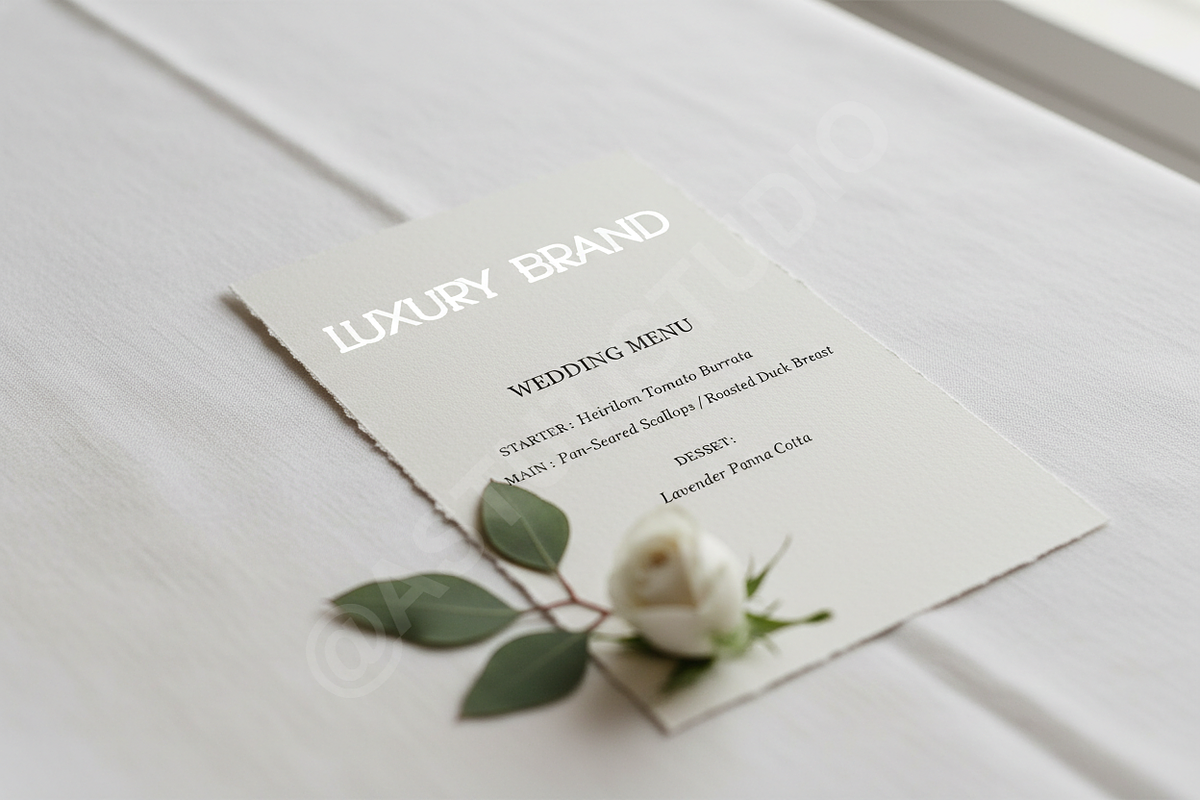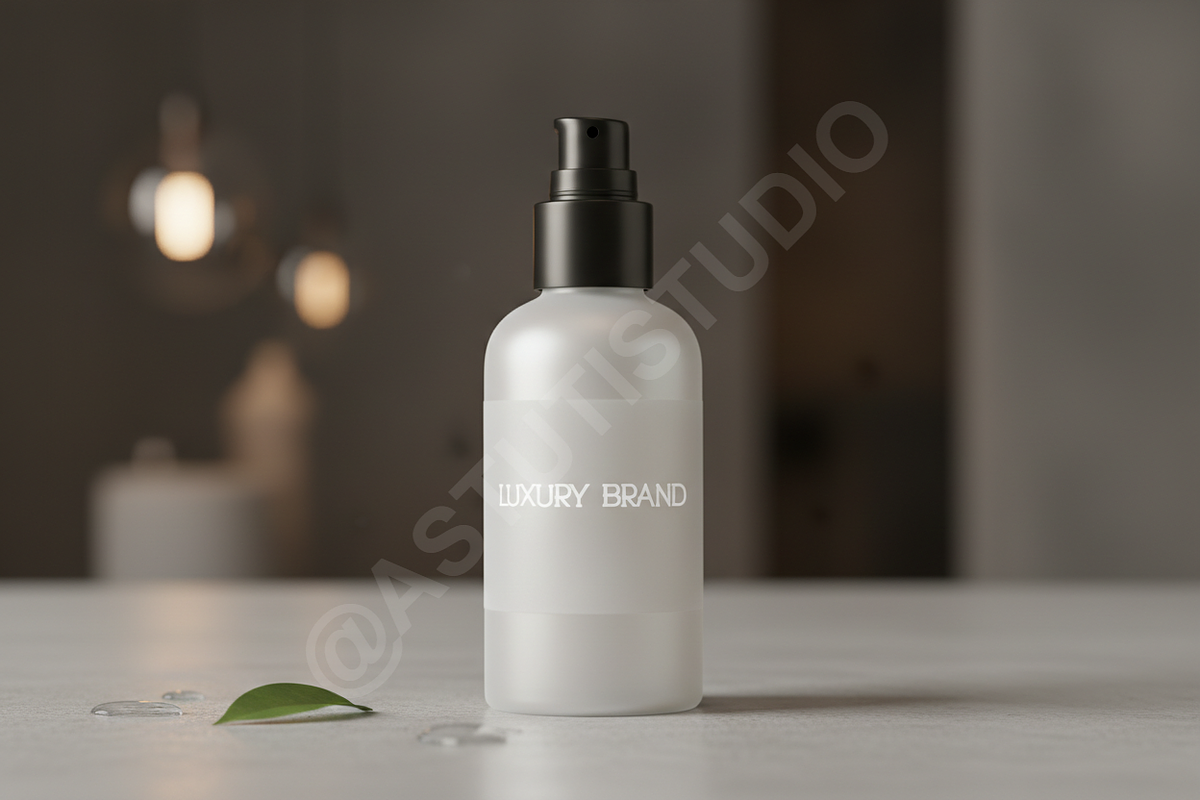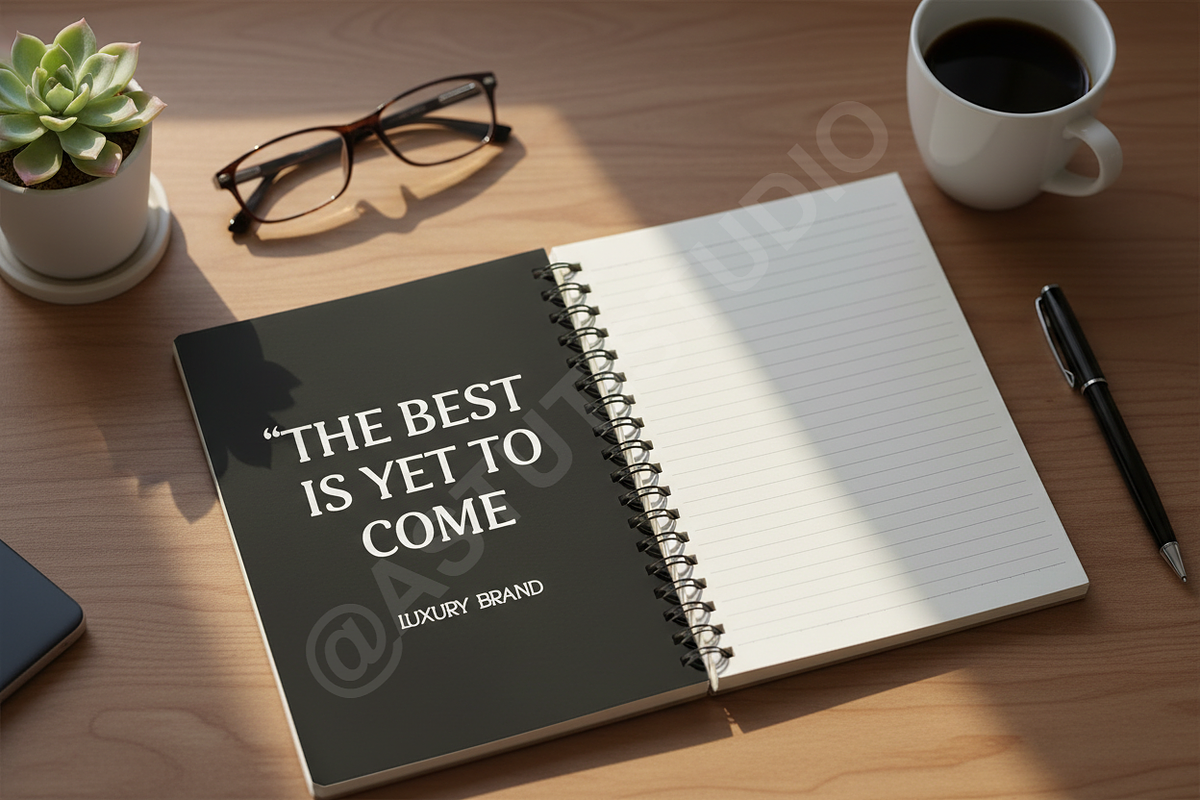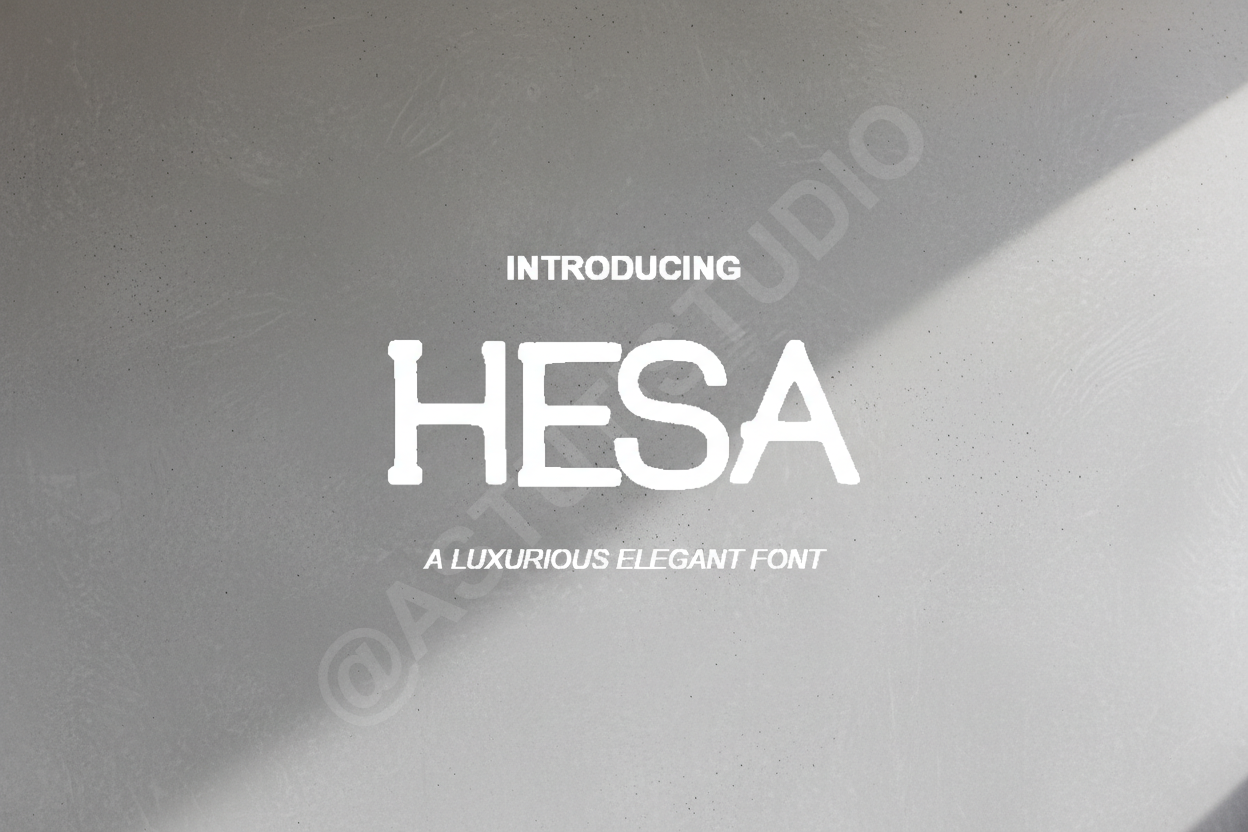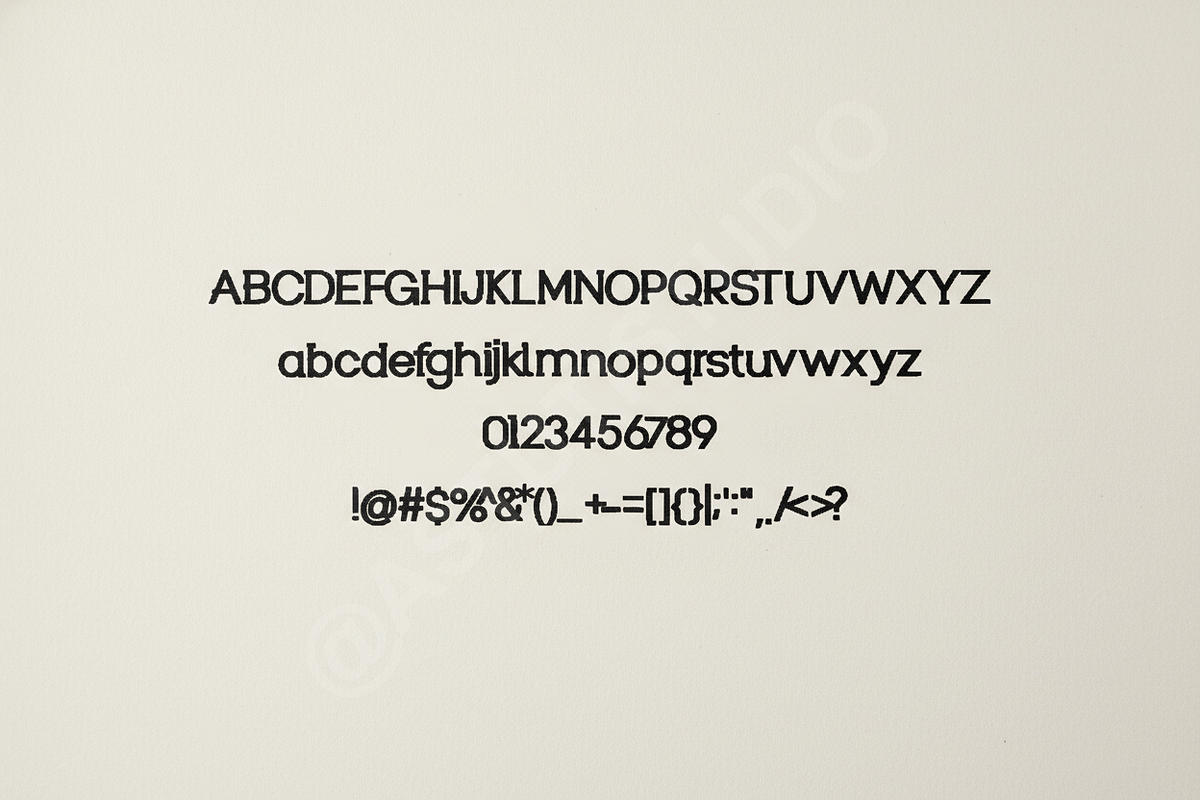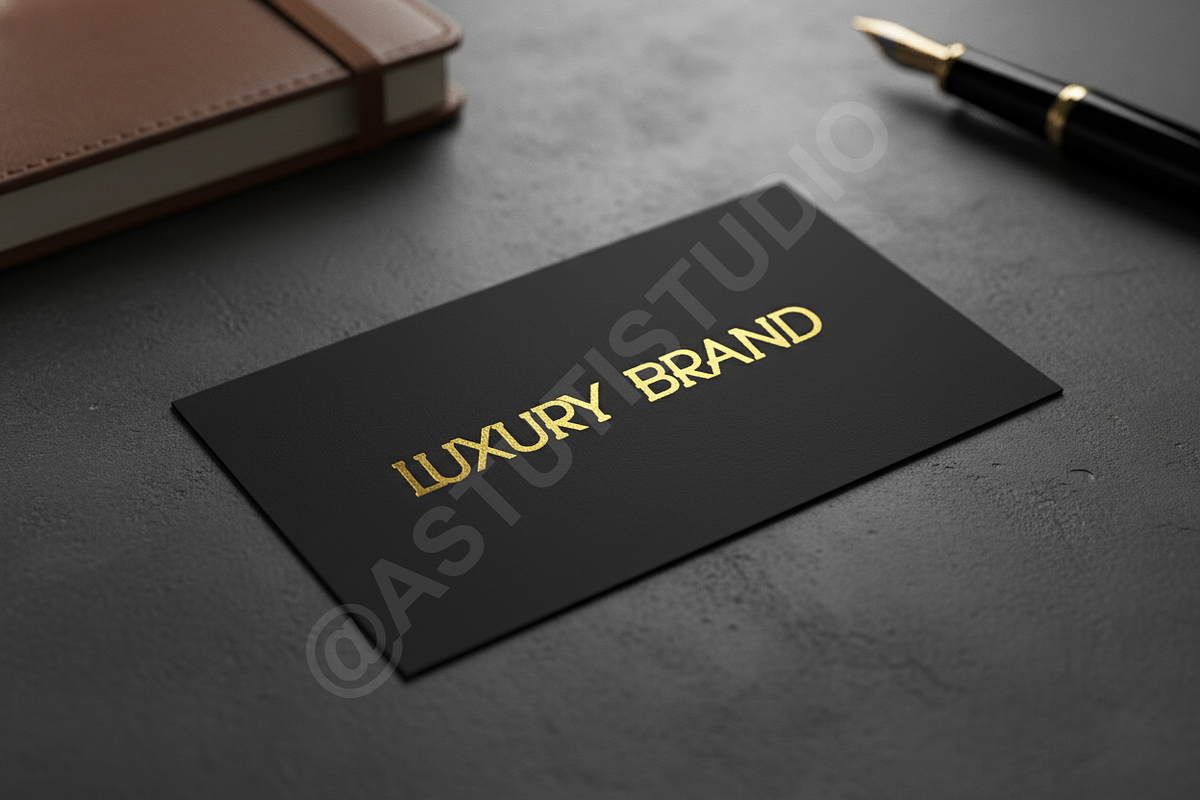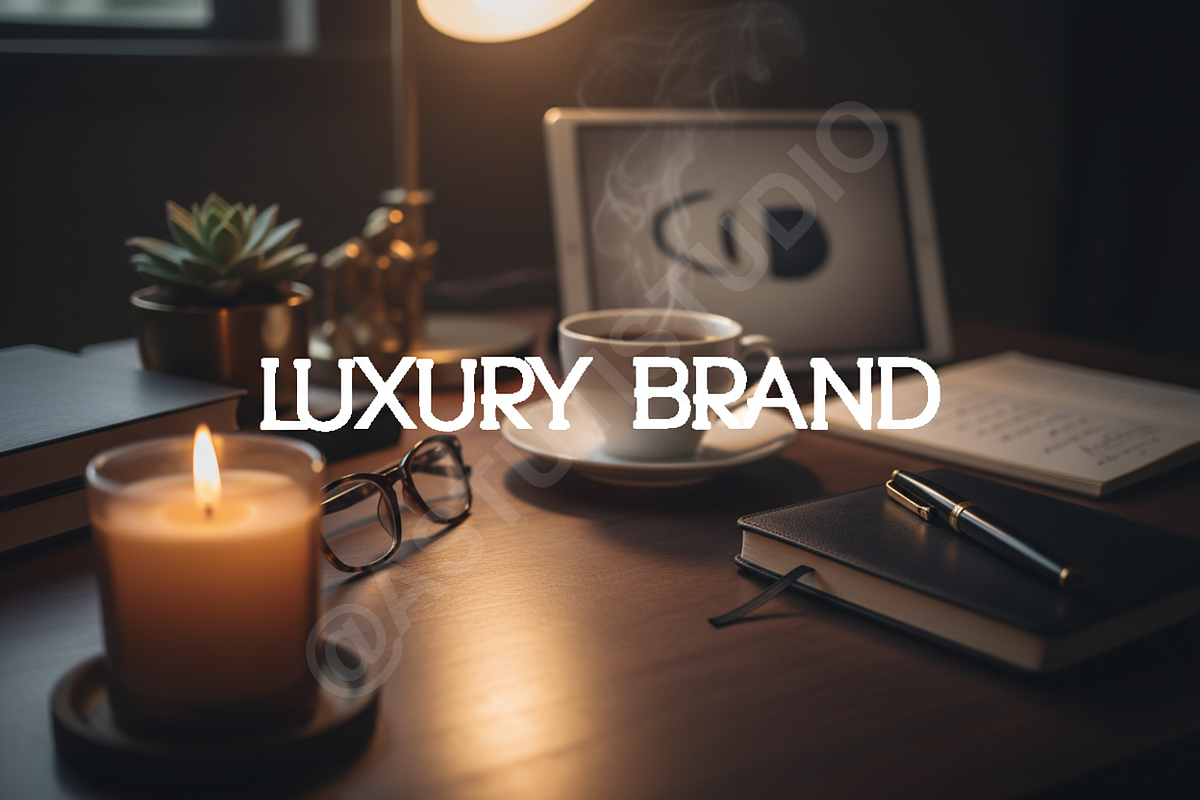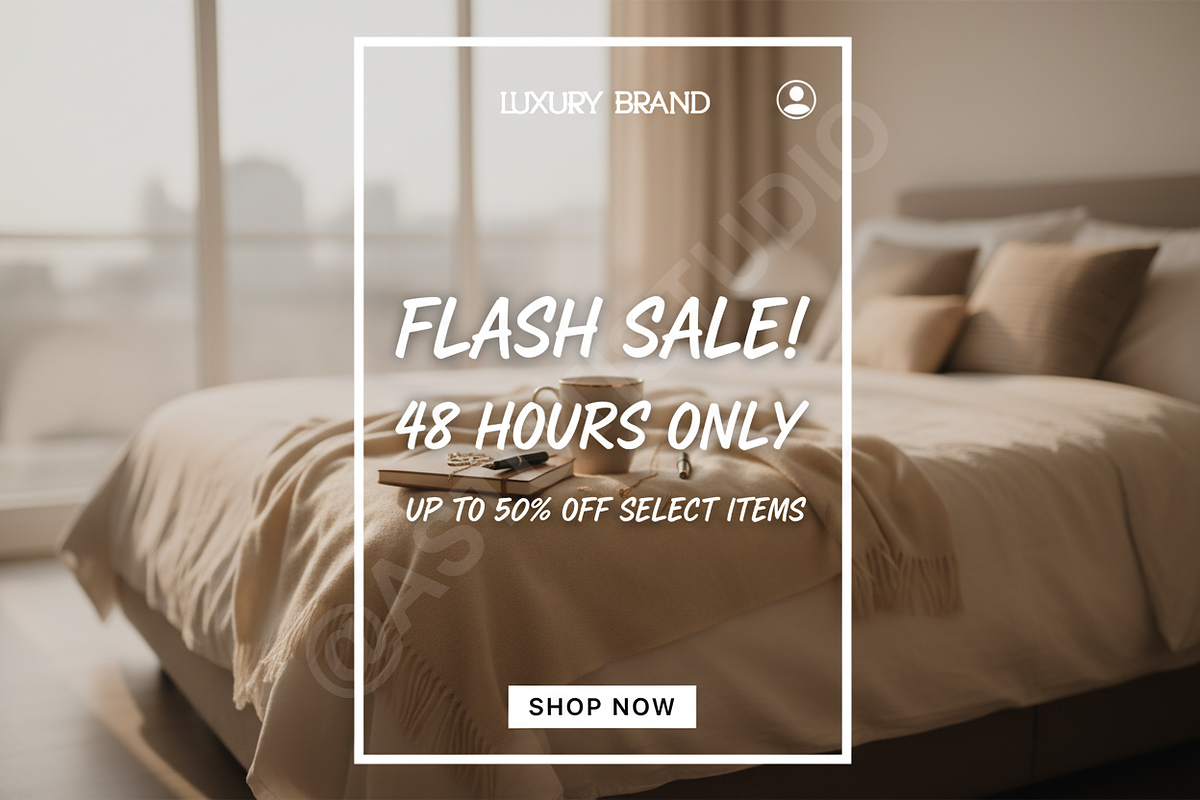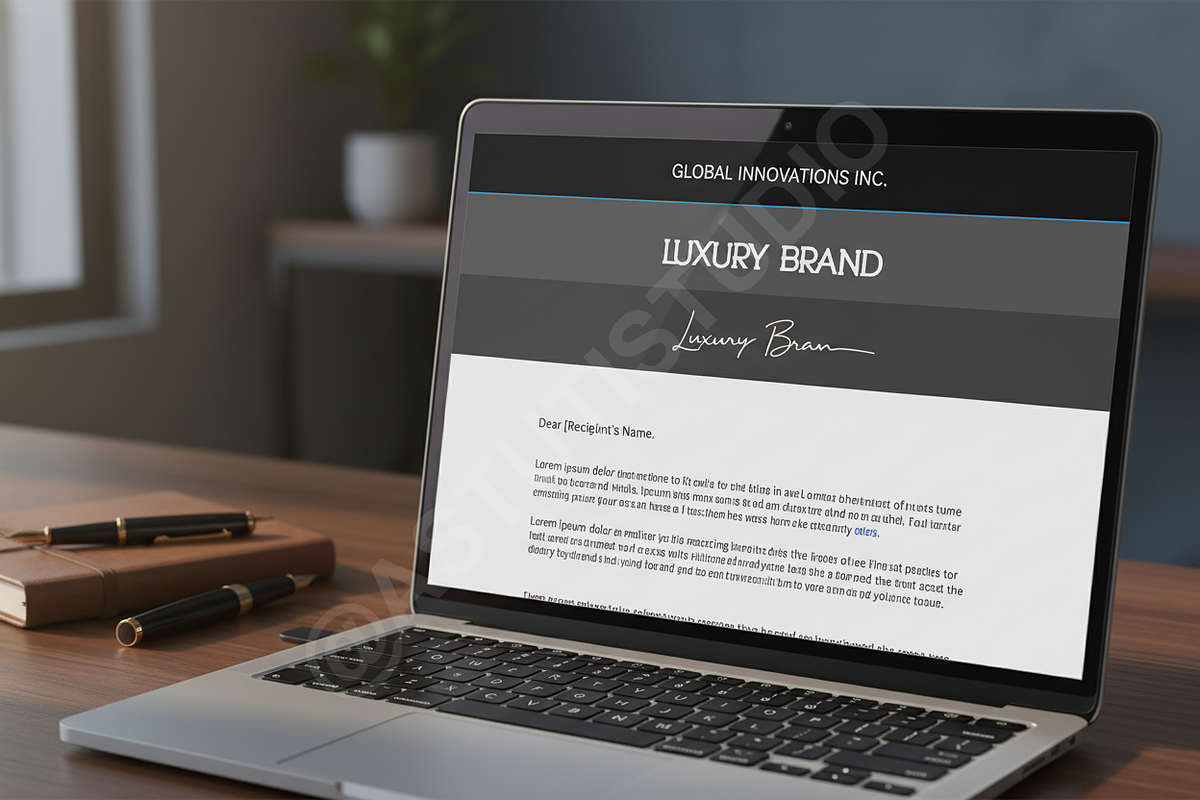
Hesa - Modern Luxury Serif Font
INTRODUCTION Hesa is a sophisticated and high-end serif typeface meticulously crafted for the modern aesthetic. Combining timeless elegance with contemporary sharp lines, Hesa provides a premium feel that elevates any design project. It is specifically designed for luxury branding, editorial layouts, high-fashion storytelling, and impactful social media presence.
- Clean and high-contrast letterforms
- Extensive ligature collection for unique character combinations
- Stylistic alternates for a custom, bespoke look
- Multilingual support for global accessibility
- Optimized kerning for professional readability
- Perfect for logos, headers, and body text
- Full set of uppercase and lowercase letters
- Numbers, punctuation, and symbols